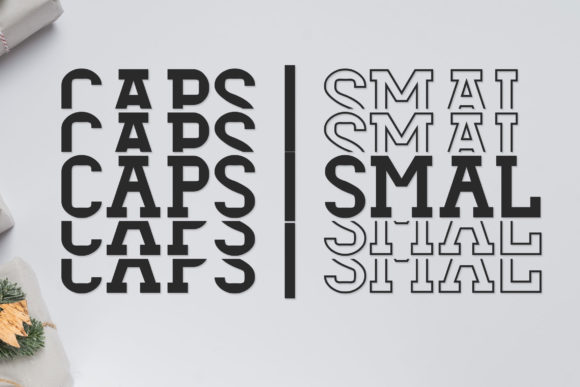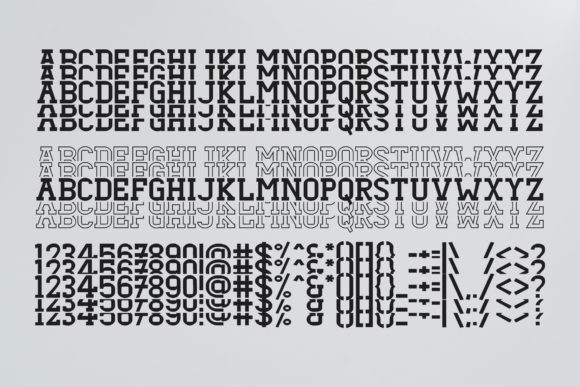
Introduction to Dezire Stacked Font
Dezire Stacked is a mirrored geometrical slab serif font.
It comes with an outlined variation, and will perfectly work for sports and gaming projects .